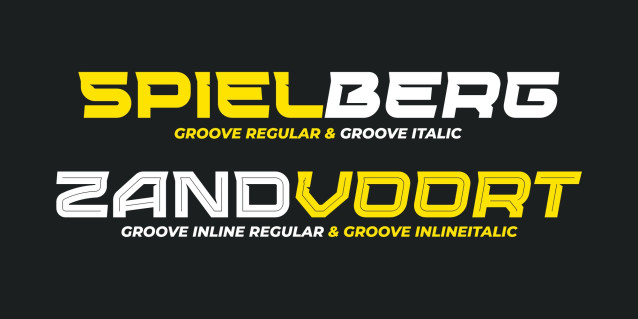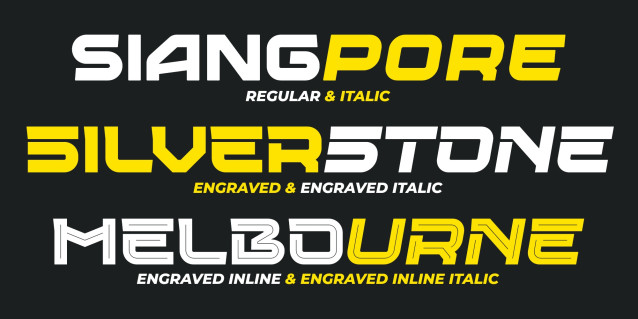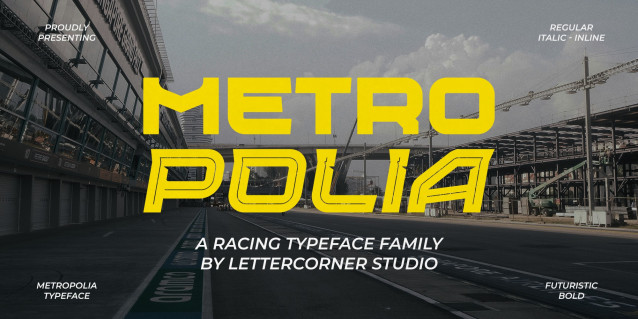
Metropolia Font
Metropolia Font is a dynamic and futuristic racing typeface family designed by Lettercorner Studio. Engineered for high-impact visuals, this font captures the raw energy and precision of professional motorsport.